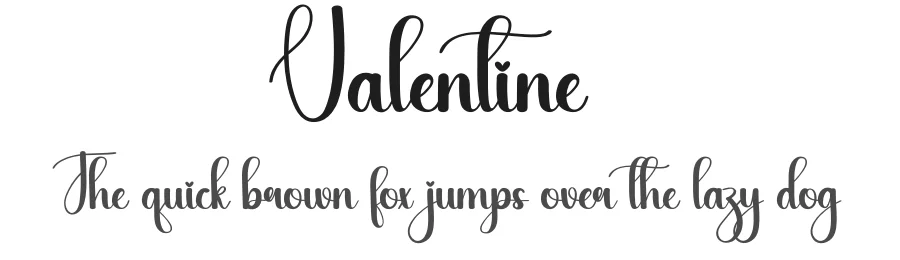
About Hear Font
Hear Font is a script font that shines as a display or heading face. Pair it with a clean sans-serif or serif font for body text β the contrast creates a clear hierarchy while the two styles stay balanced and easy to read.